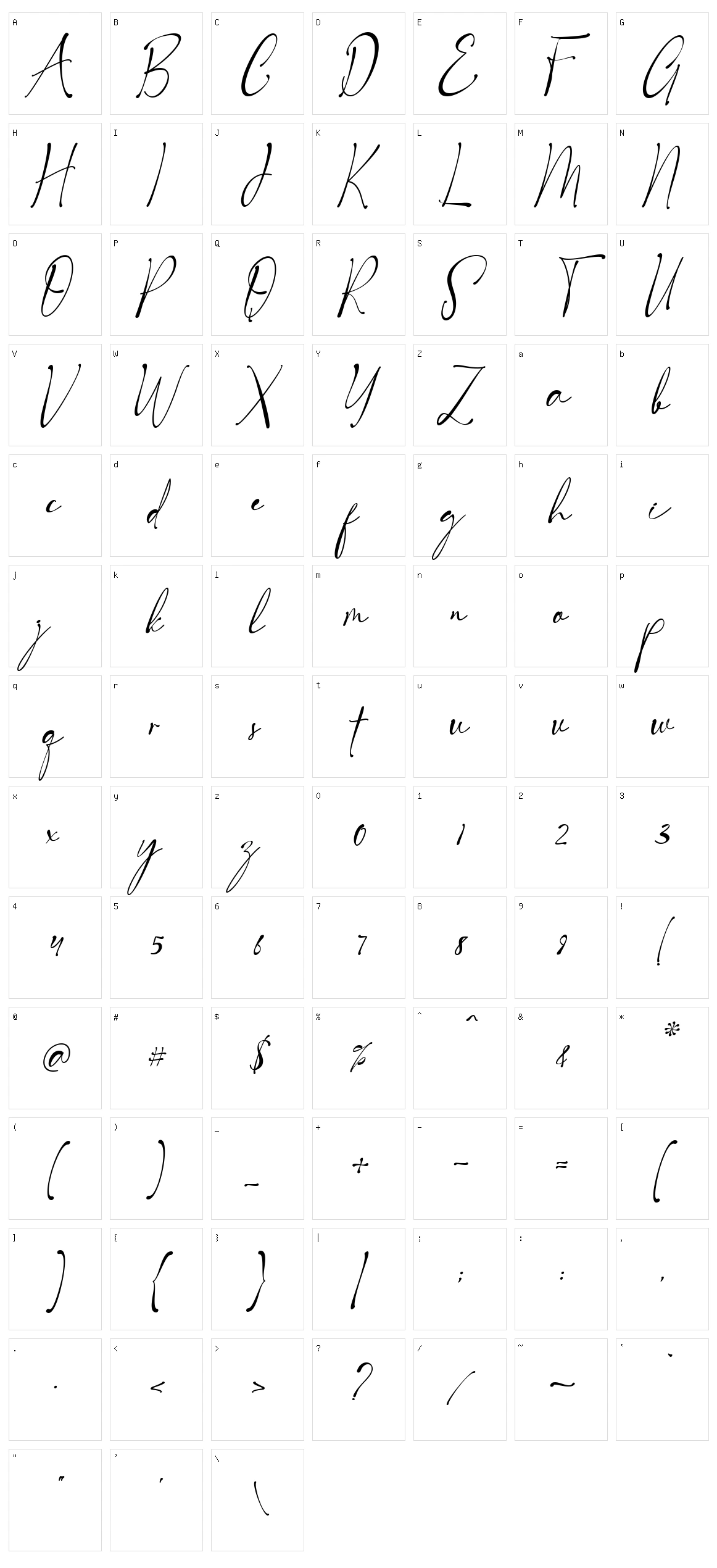
The free font Royal Signature is carefully designed by Yoga Letter, showcasing a thoughtful balance of creativity and usability and falls under the Script font style. When you download the ZIP file, it contains only 297.1 KB of font files, making it lightweight and quick to download. Please review the license details below to understand permitted usage and distribution rights. If license information is not available, we recommend using this font for personal projects only or contacting the author directly for commercial usage permissions.